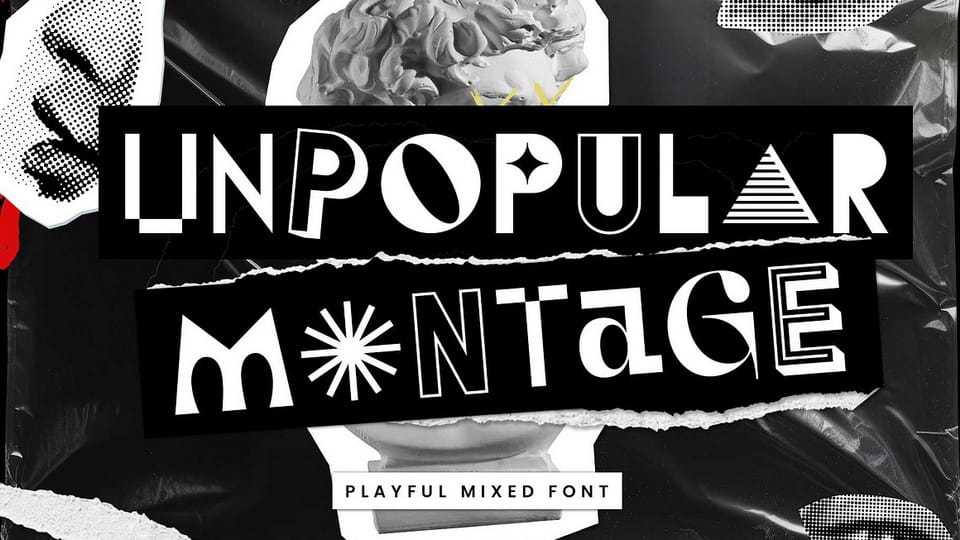
Download Unpopular Montage font, a rebellious mixed typeface born from modern collage art and retro experimentation. A bold blend of shapes and moods — sans meets serif, geometric meets organic, creating a vibrant typographic fusion that feels both nostalgic and new.